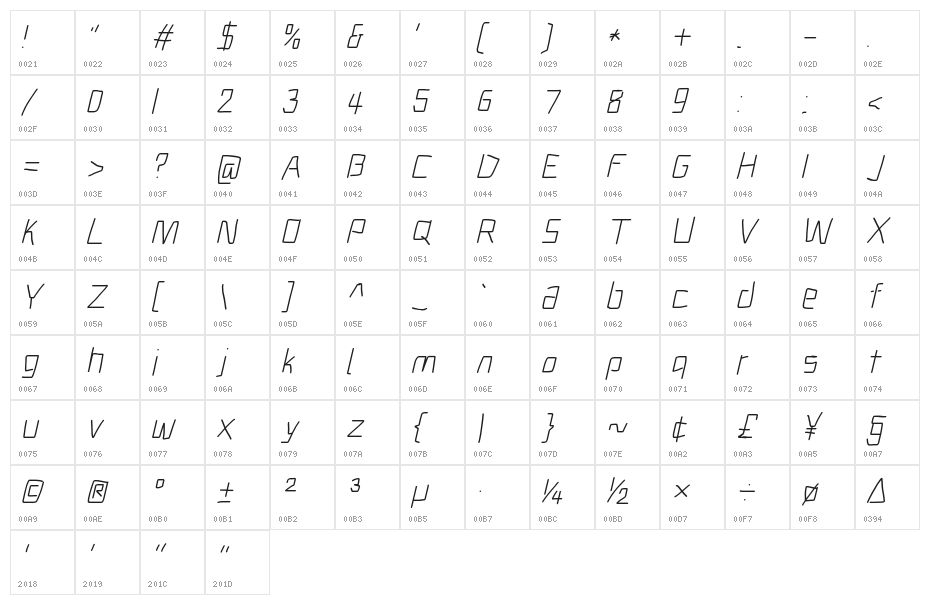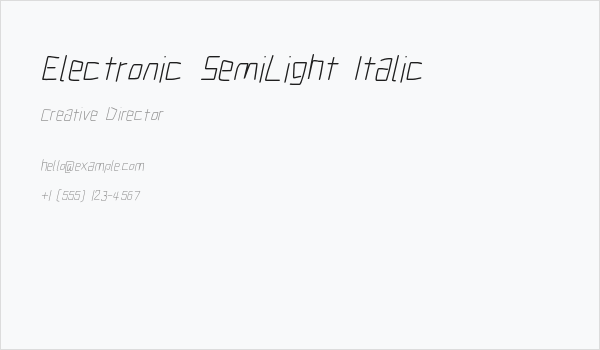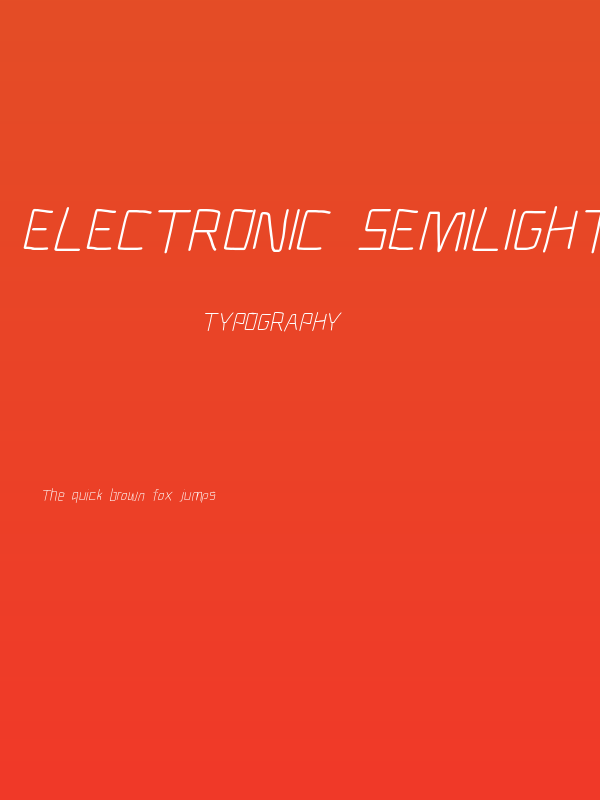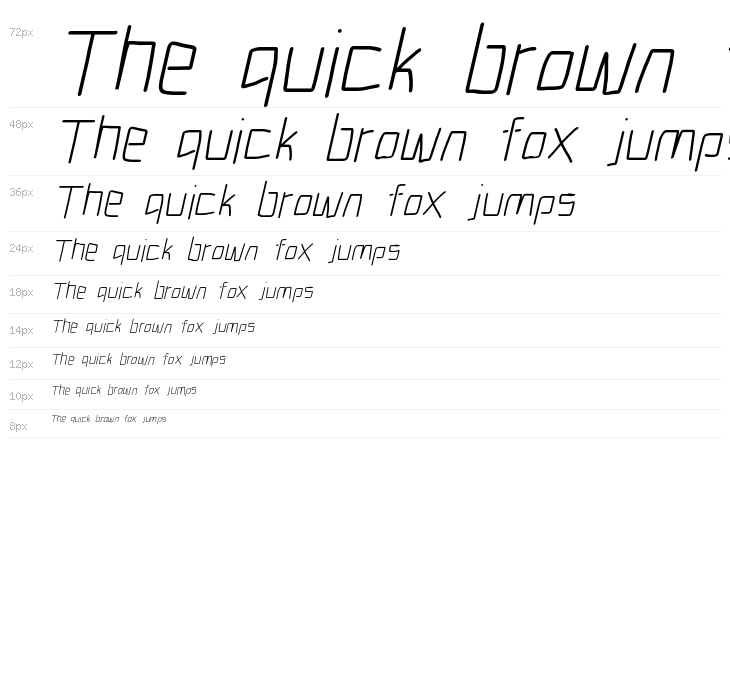
Electronic SemiLight Italic Font
Electronic SemiLight Italic Description
This font features a sleek, modern design with a semi-light weight and italic style. The characters are slightly slanted, giving a dynamic and forward-moving appearance. The strokes are consistent and clean, with a geometric influence that provides a sense of precision and clarity. The uppercase and lowercase letters maintain a uniform height, contributing to a cohesive look. The numerals and special characters are designed to complement the alphabet, ensuring readability and versatility. This font is ideal for projects that require a contemporary and technical feel.
Use CaseHeadlines, Logos, Digital Interfaces
Proposed ProjectsIdeal for tech branding, digital interfaces, modern advertising, and innovative product packaging.